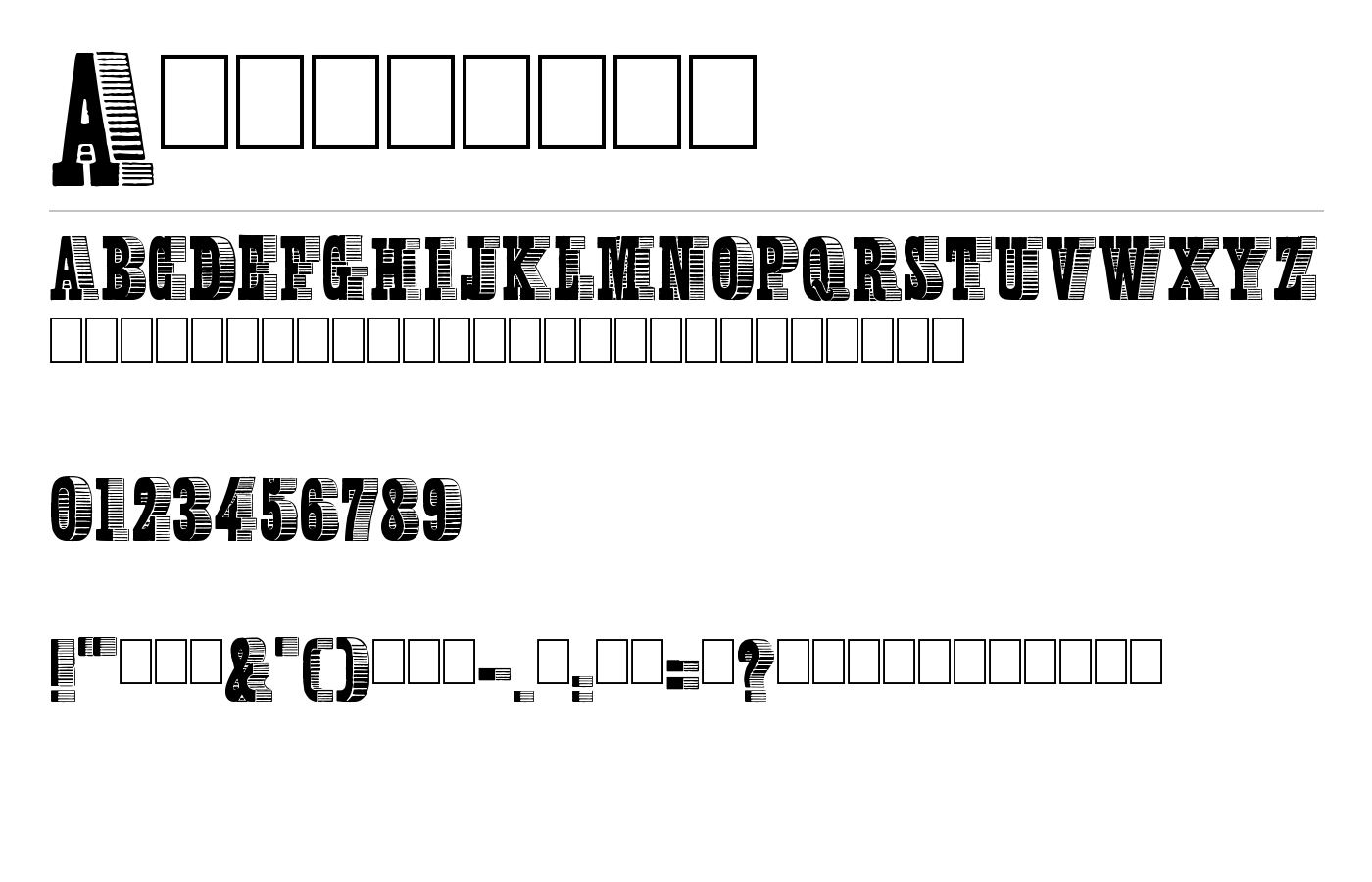
Alexandre is a bold, decorative slab serif font that features strong vertical serifs and a distinctive striped shading effect on each letter, lending it a vintage, western-inspired charm. Its tall, condensed letterforms with high contrast and blocky structure make it ideal for eye-catching headlines, posters, and branding where a bold, nostalgic statement is desired. This font works best in display settings where its unique texture and personality can shine without sacrificing legibility.
Alexandre Font
About Alexandre Font